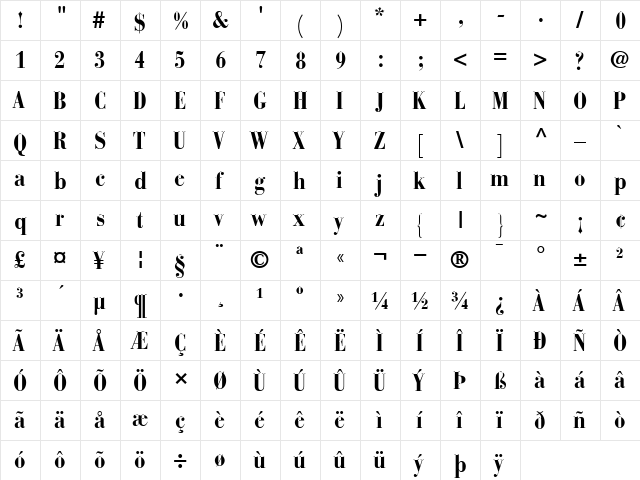
12BauerBodoni**24033-Condensed Bold
Design Context for 12BauerBodoni**24033-Condensed Typeface
12BauerBodoni**24033-Condensed is a composed and adaptable typeface that performs quietly and consistently across a wide range of design contexts. Its bold stroke weight gives it real presence on the page. Its narrow stance lets it pack a punch even in space-constrained designs.